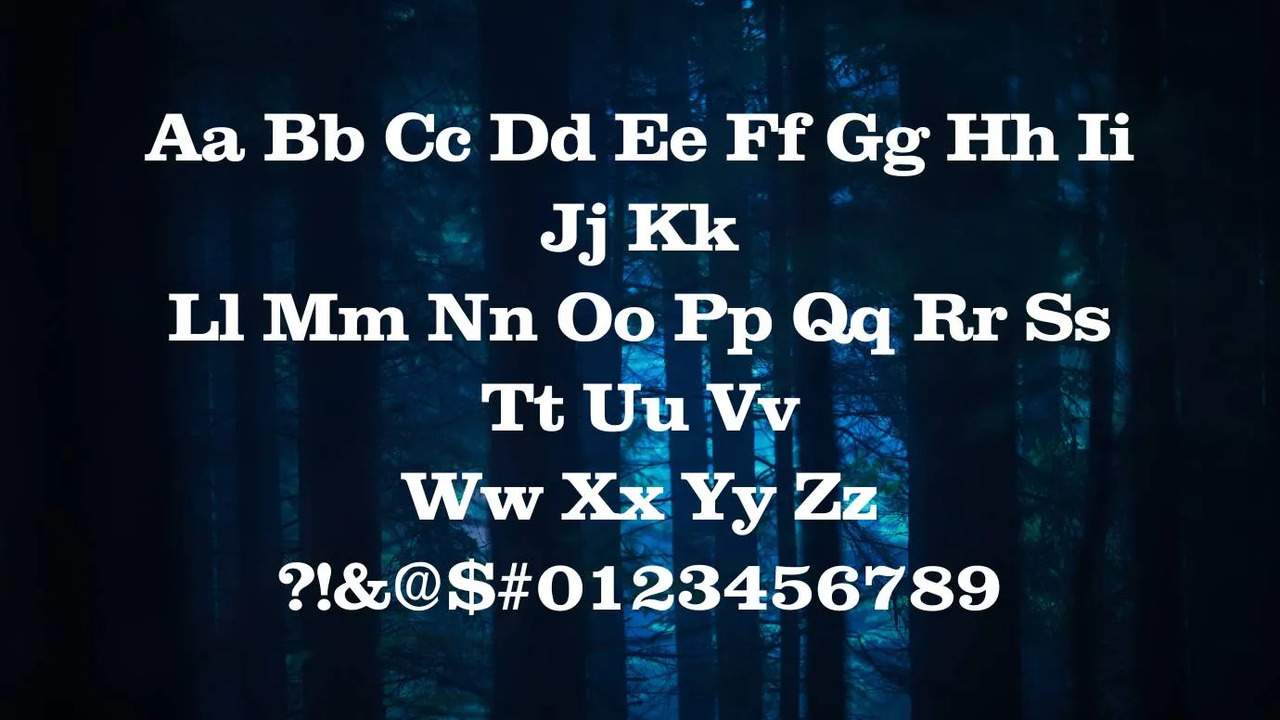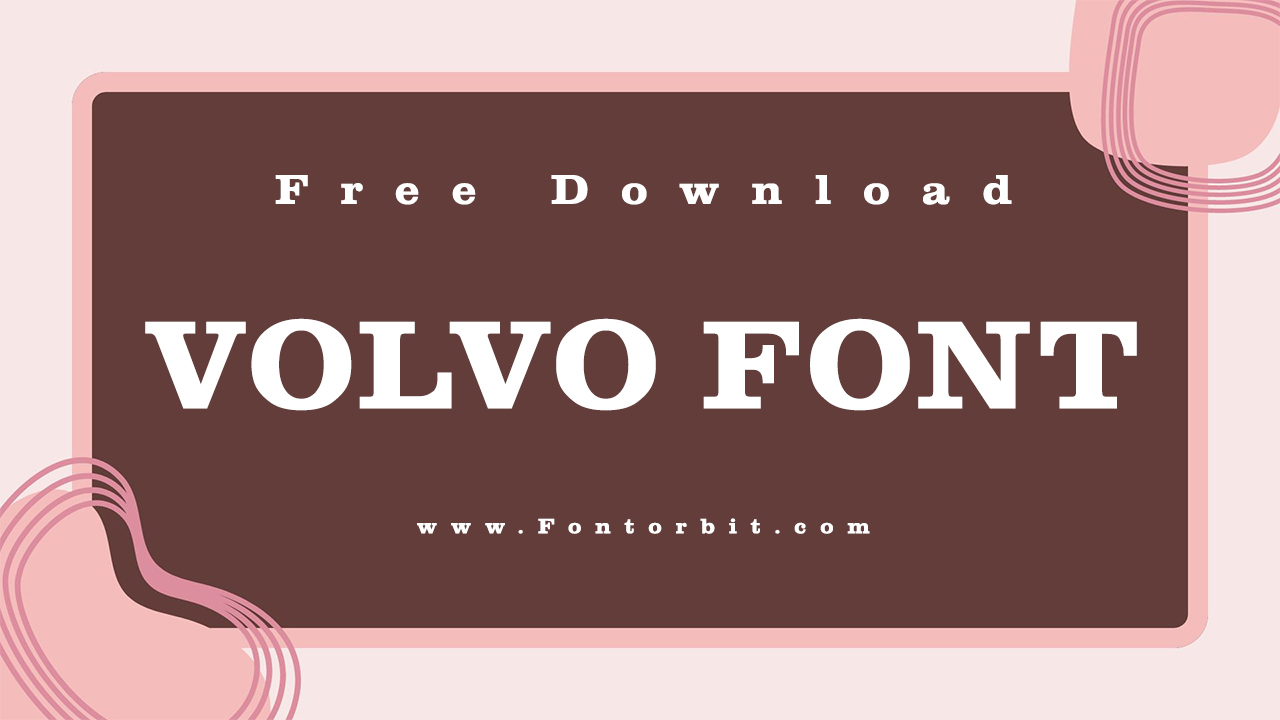
Volvo Font is a distinctive slab-serif typeface originally designed for the iconic logo of the renowned Swedish manufacturing company, Volvo. Created by Robert Besley and released by Thorowgood and Co. in 1945, this font features bold, strong characters that enhance its visibility and impact. Ideal for display and logo designs, Volvo Font captures the robust and modern essence of the Volvo brand.
The Volvo Font Family
Volvo Font is a part of the slab-serif family, characterized by its bold and sturdy letterforms. This font is available in OTF and TTF formats, making it versatile for various design applications. Its bold nature and clean lines are perfect for creating impactful logos, business cards, titles, and more.
Notable Uses: Volvo Font
- Logo Design
- Title Design
- Business Cards
- Greeting Cards
- Certificate Printing
- Fabric Industries
- Software and Game Development
Volvo Font’s strong, slab-serif design makes it suitable for a range of applications, from corporate branding to creative projects. This typeface contains all characters with uppercase, lowercase, number, and other symbols effective for display purposes, ensuring clarity and prominence in both print and digital media.
Final Words
Volvo Font is an excellent choice for designers seeking a bold, modern slab-serif typeface with a strong visual presence. It remains a classic choice for logo and display typography.
While the exact font used in the Volvo logo may be a custom creation, Volvo Font and similar typefaces like Clarendon Bold offer a comparable aesthetic. This font is versatile for both official and creative uses, enhancing design projects with its robust and timeless style.
1.Who Is The Creator Of Volvo Font?
Robert Besley is the creator of the Volvo Font.
3.What Font Is Used In The Volvo Logo?
The Volvo logo uses a customized version of a slab serif typeface, similar to Clarendon Bold.
6.What Font Is Close To Volvo Font?
Clarendon Bold is a close match to the Volvo Font used in the logo.
7.What Are The Best Pairings For Volvo Font?
Pair Volvo Font with clean sans-serifs like Helvetica or modern serifs like Playfair Display for a sophisticated, balanced design.
8.How To Create A Modern Look Using Volvo Font?
Combine Volvo Font with clean sans-serifs and use ample white space to highlight its bold slab-serif design and achieve a contemporary aesthetic.